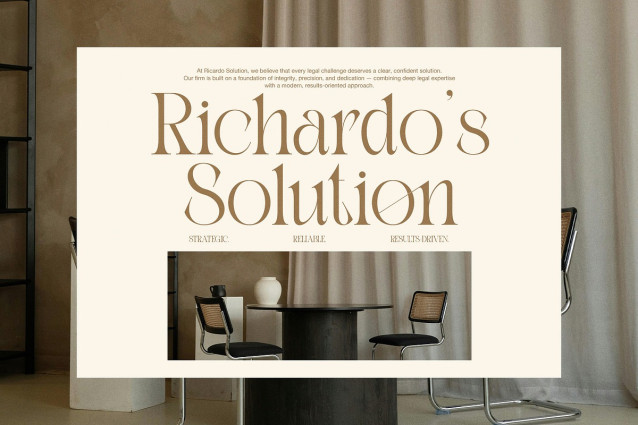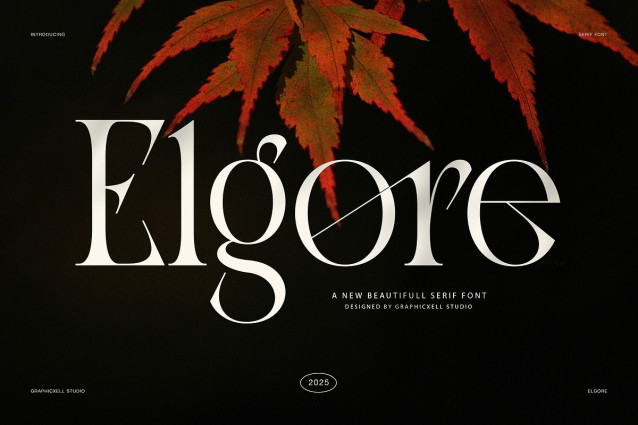
Elgore Font is an elegant modern serif font created to deliver confidence, clarity, and timeless luxury. It features refined curves, sharp contrast, and expressive ligatures that elevate every composition. Because each letter feels intentional, Elgore creates impact while staying graceful.
This serif font blends classic editorial structure with modern fashion energy. As a result, designers rely on Elgore for magazines, modelling portfolios, and high-end branding. Moreover, its unique ligatures add personality without disrupting balance. Every character supports a clean and sophisticated visual rhythm.
Elgore works beautifully for designers who seek authority and elegance. Therefore, it suits fashion campaigns, interior studios, law firms, and lifestyle brands. In addition, it performs strongly in headlines, hero sections, and large display layouts where presence matters.